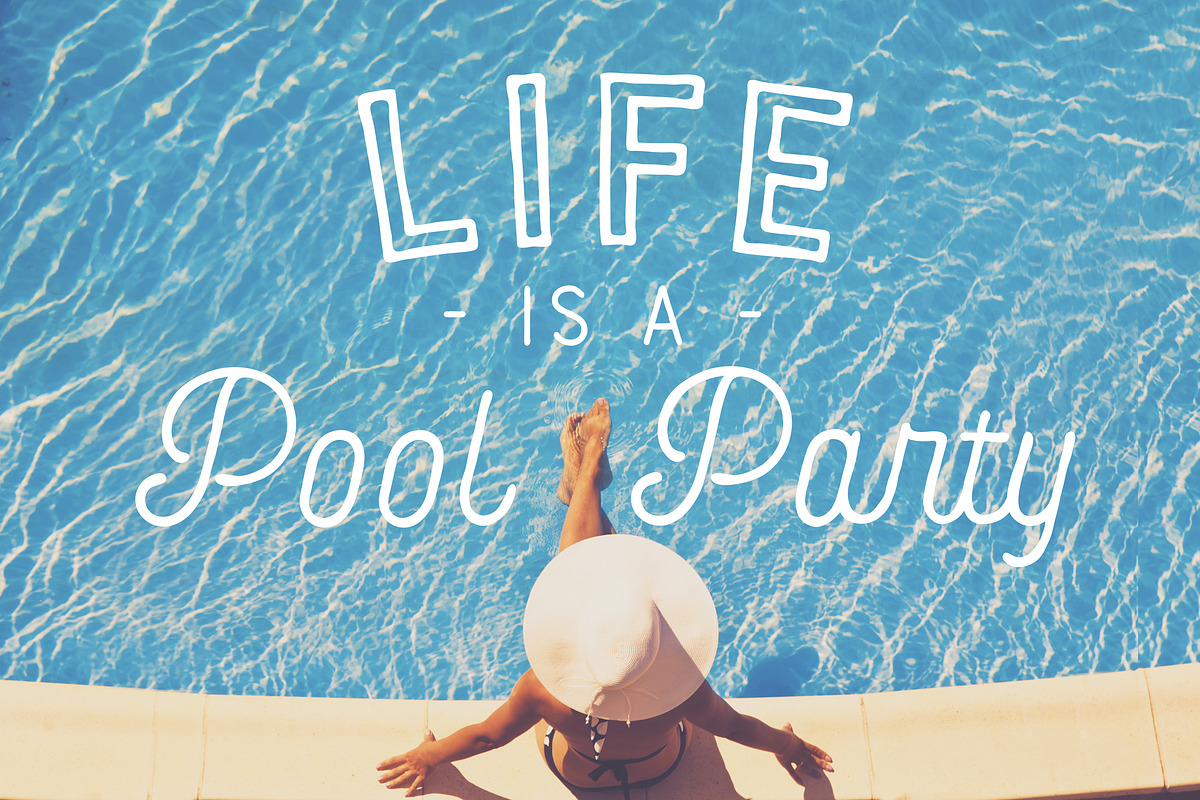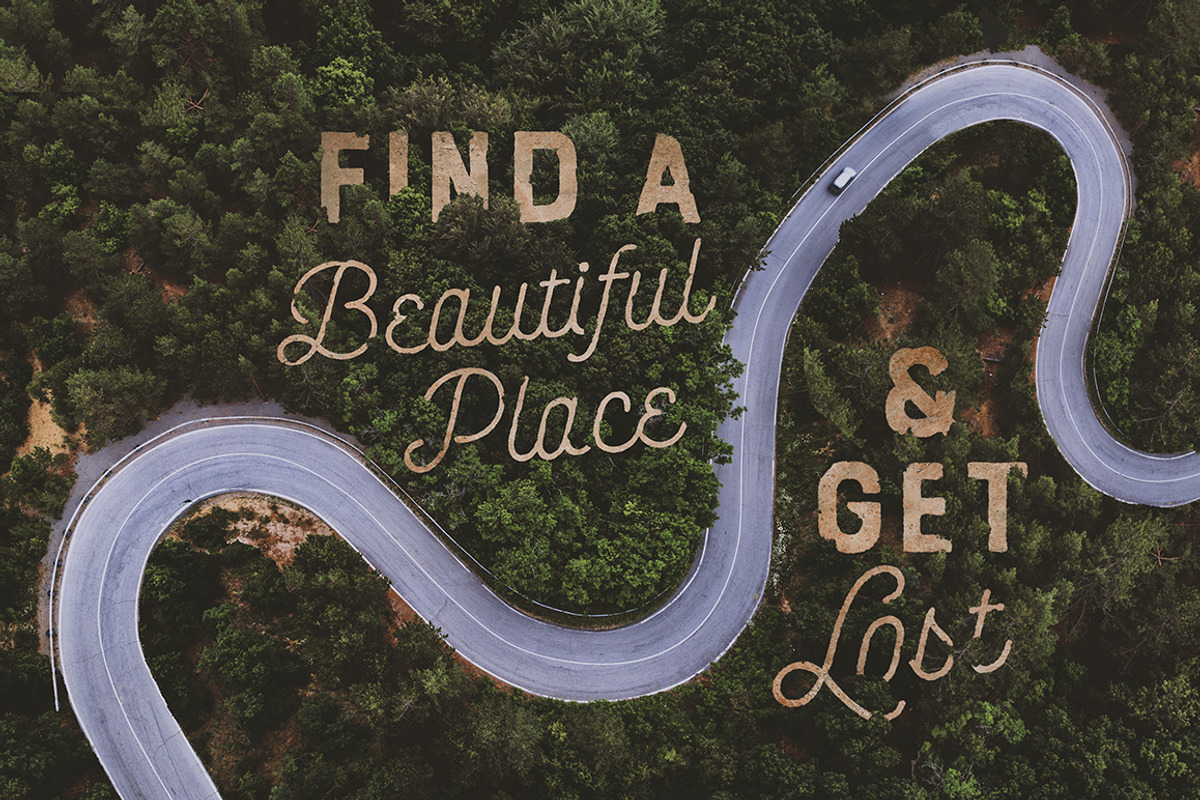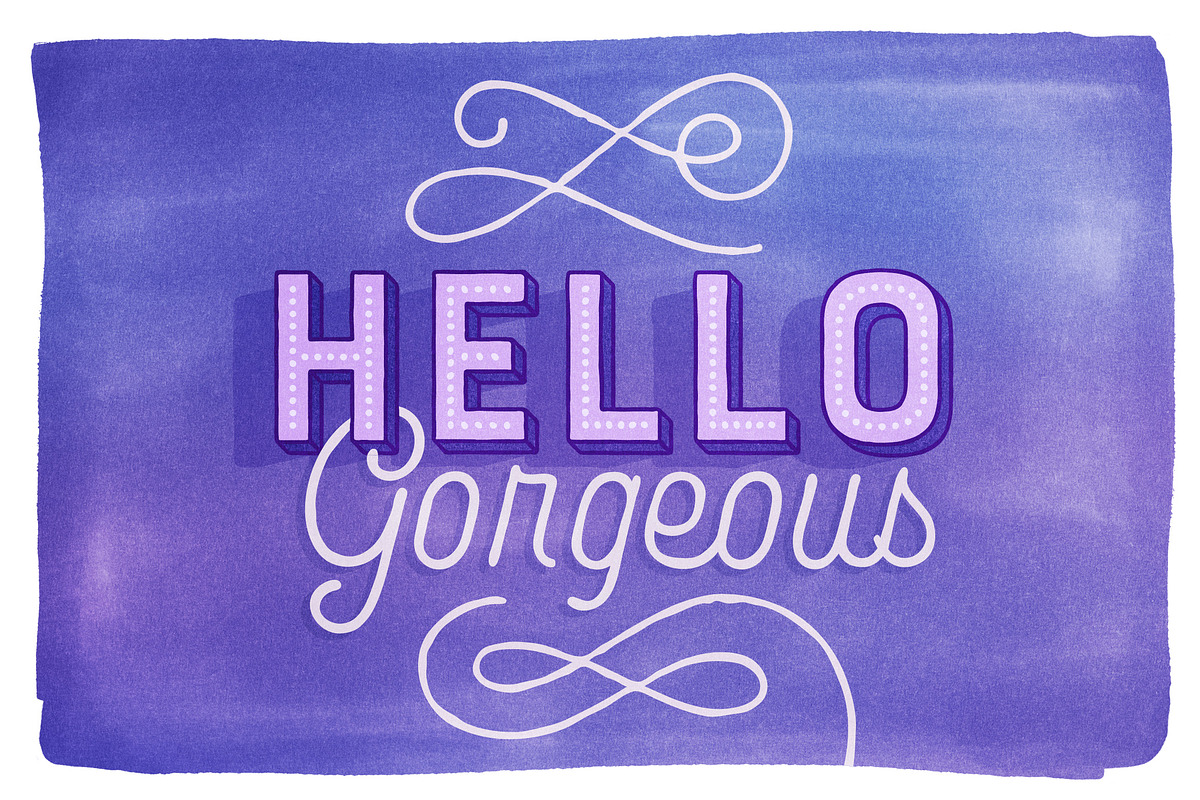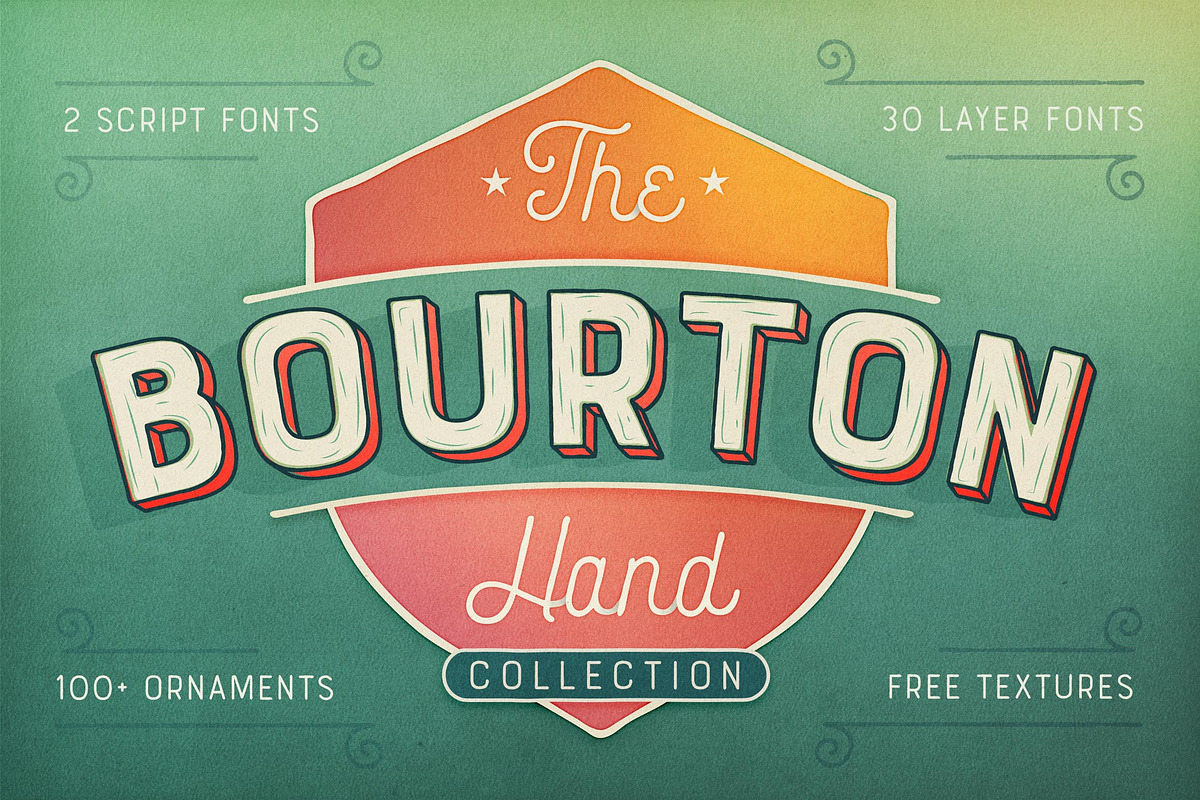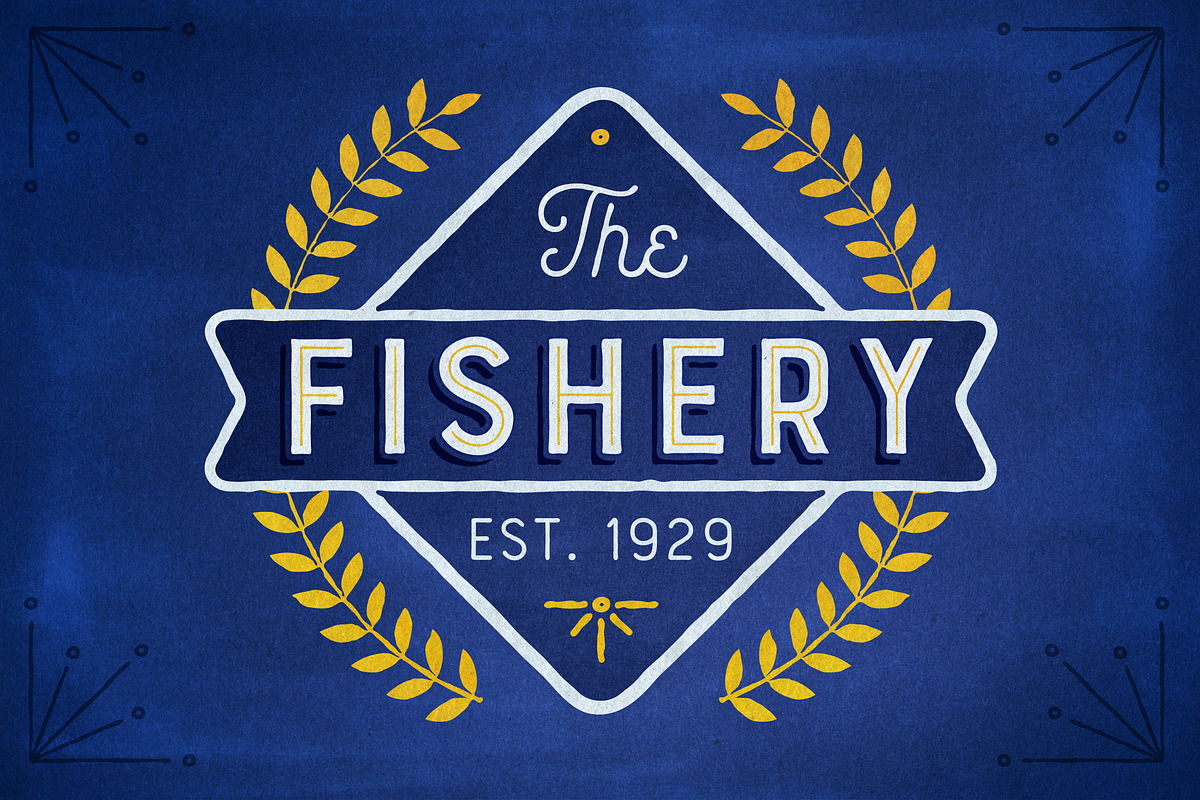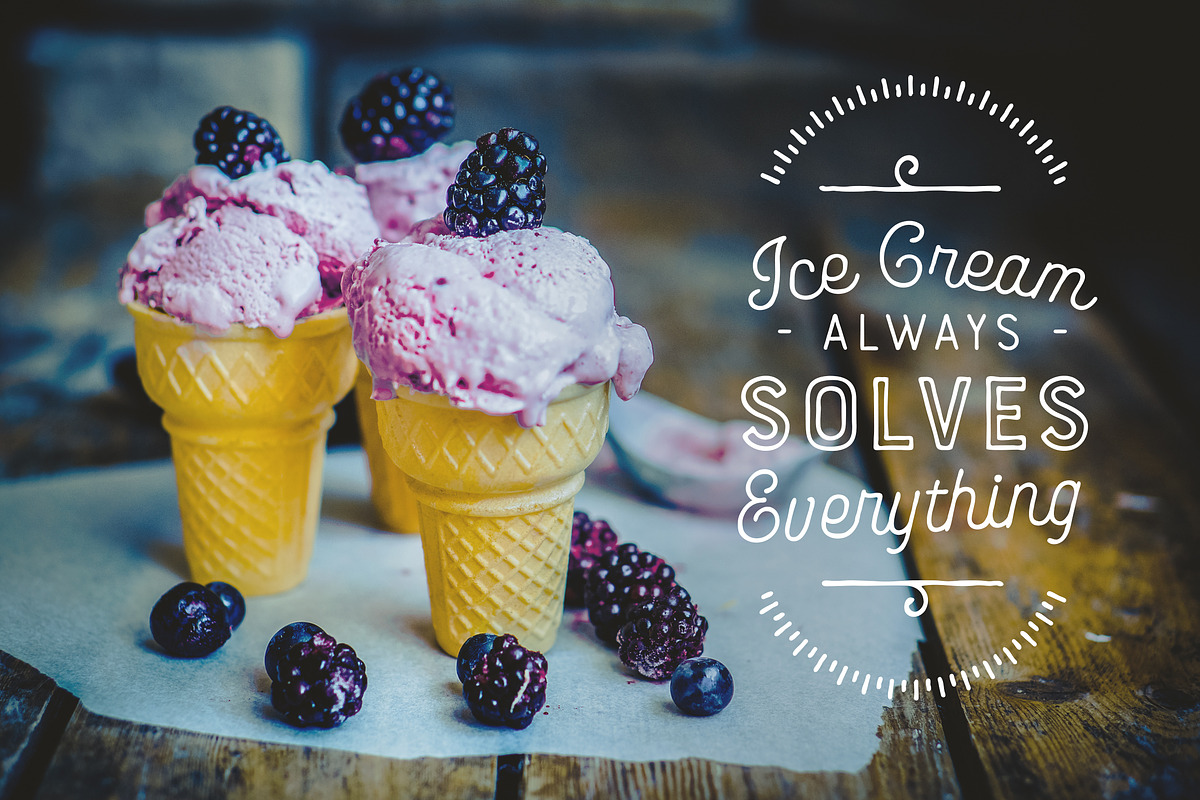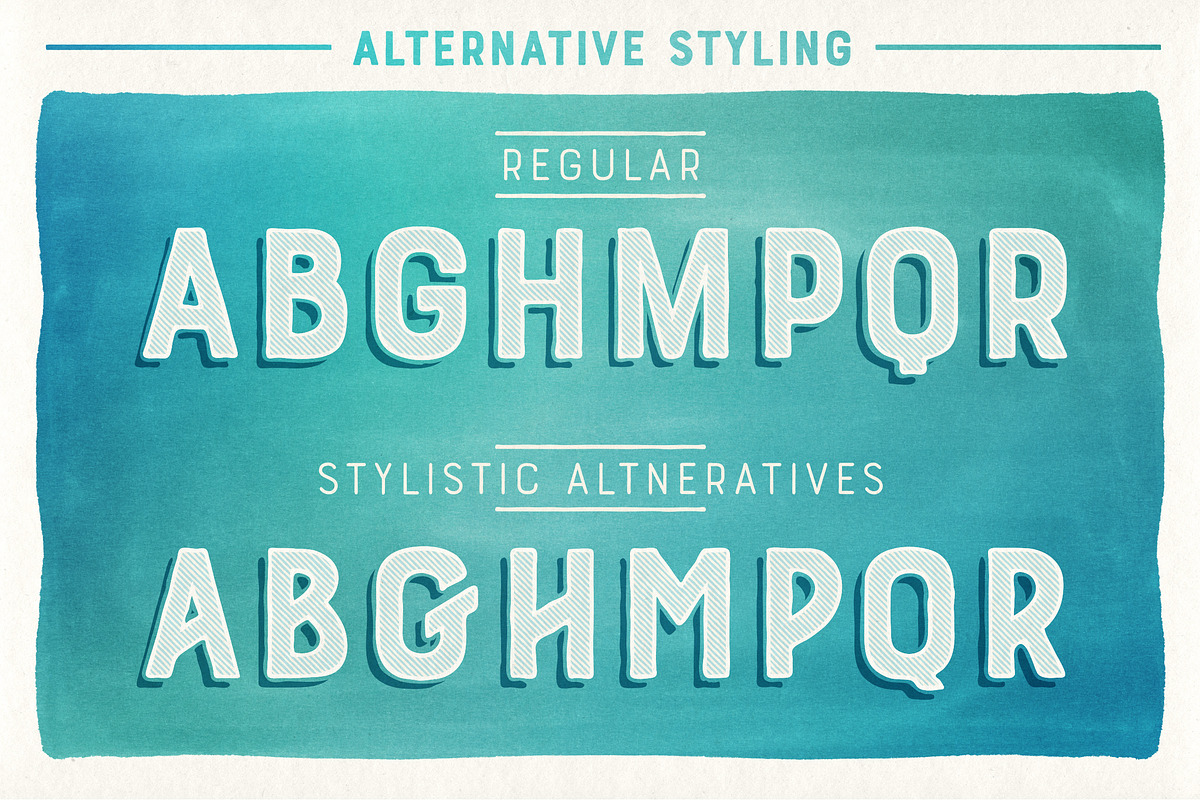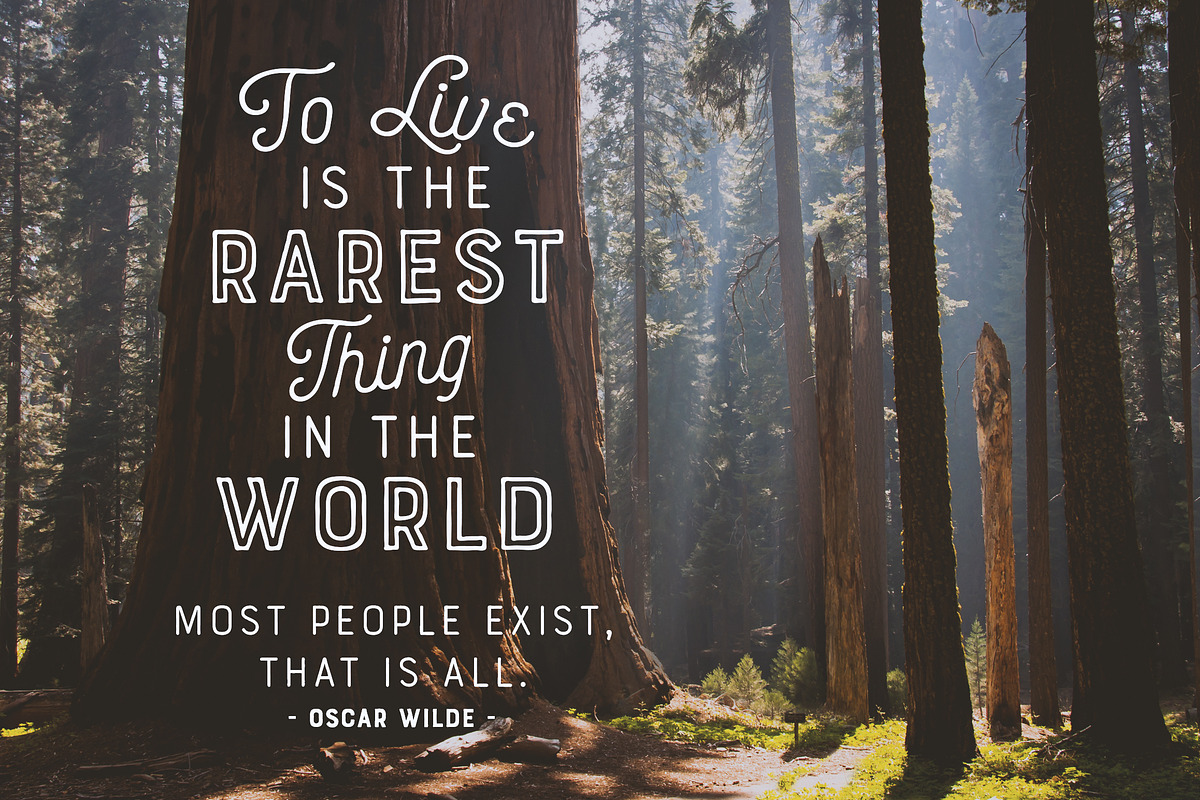
Bourton Hand Font
Bourton Hand Font by Kimmy Design is a font selected for branding, posters, packaging, typography.
- Bourton Hand is the handmade version of the Bourton Family(https://creativemarket.com/KimmyDesign/1042062-Bourton-Typeface-%E2%80%A2-34-Font
Why Bourton Hand Font is worth a look
Bourton Hand Font by Kimmy Design fits naturally into Branding, posters, packaging, typography.